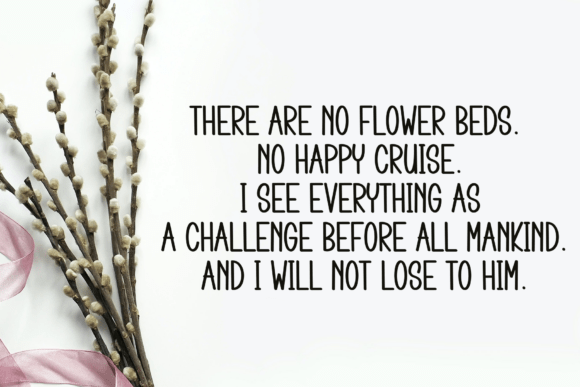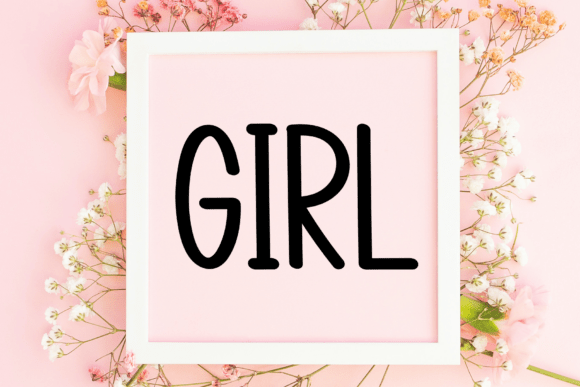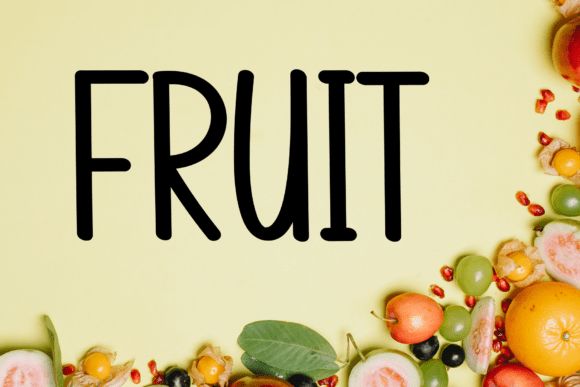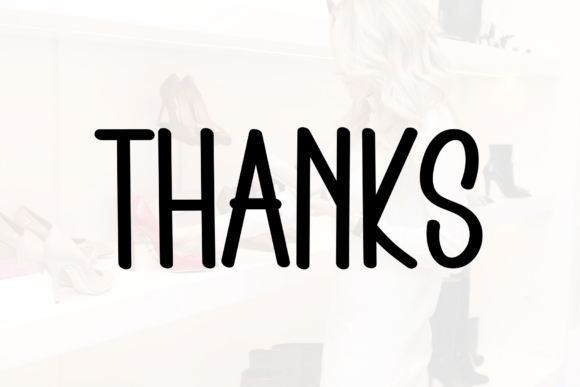
Introducing Graduaing Font: The Perfect Blend of Relaxed and Luxurious
Are you tired of using the same old fonts for your designs? Look no further than Graduaing Font, a handwritten font that exudes a sense of relaxed sophistication. With its marker-drawn aesthetic, Graduaing is perfect for designers and crafters looking to add a touch of elegance and casual charm to their work.
The Characteristics of Graduaing Font
Graduaing Font is a unique and versatile typeface that boasts a sporty and relaxed feel. Its handwritten style gives it a personal and approachable vibe, making it ideal for a wide range of design applications. Whether you’re working on branding, logos, wedding supplies, greeting cards, fashion lookbooks, or marketing promotions, Graduaing is the perfect choice.
One of the standout features of Graduaing Font is its luxurious yet casual feel. It’s perfect for designers who want to create high-end designs that still feel approachable and down-to-earth. With Graduaing, you can add a touch of sophistication to your work without sacrificing a sense of fun and playfulness.
What Makes Graduaing Font So Versatile?
Graduaing Font is incredibly versatile, making it suitable for a wide range of design projects. Here are just a few examples of how you can use Graduaing:
- Branding: Use Graduaing Font to create a unique and memorable brand identity that stands out from the crowd.
- Logos: Graduaing’s marker-drawn aesthetic makes it perfect for creating logos that are both modern and timeless.
- Wedding Supplies: Add a touch of elegance and whimsy to your wedding designs with Graduaing Font.
- Greeting Cards: Use Graduaing to create personalized and heartfelt greeting cards that feel truly special.
- Fashion Lookbooks: Graduaing Font is perfect for fashion designers who want to showcase their designs in a stylish and sophisticated way.
- Marketing Promotions: Use Graduaing to create eye-catching marketing materials that grab attention and drive results.
Why Choose Graduaing Font?
So why should you choose Graduaing Font for your next design project? Here are just a few reasons:
- Unique Style: Graduaing Font has a one-of-a-kind style that’s sure to make your designs stand out.
- High-Quality: Graduaing Font is a high-quality typeface that’s designed to deliver exceptional results.
- Versatile: Graduaing Font can be used for a wide range of design applications, making it a great addition to any designer’s toolkit.
Tips for Using Graduaing Font
Here are a few tips for getting the most out of Graduaing Font:
- Experiment with Different Sizes: Graduaing Font looks great in a variety of sizes, so don’t be afraid to experiment and find the perfect size for your design.
- Pair with Other Fonts: Graduaing Font pairs well with a range of other fonts, so try combining it with different typefaces to create a unique look.
- Use it for Headlines and Body Text: Graduaing Font is perfect for both headlines and body text, making it a great choice for designs that require a lot of text.